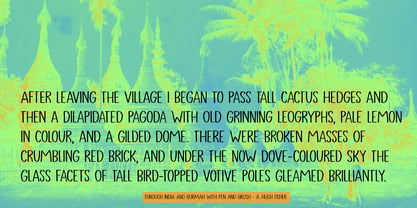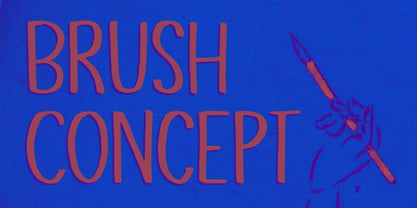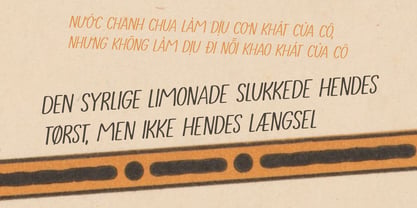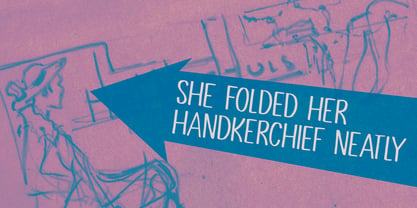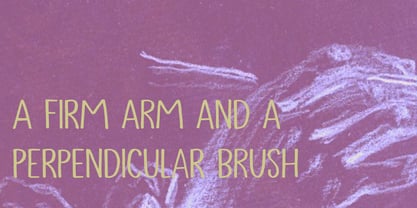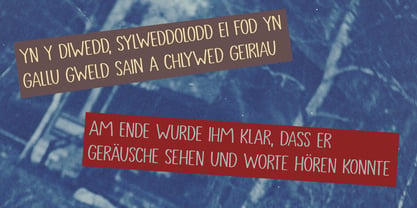
Brush Concept Pro
A long time ago, I bought a pack of Japanese brush-pens. I used them for a while, but then I moved house, renovated it, sold it and moved again, so the pens got stuck in some box. A week ago I found one - by accident, I was looking for an actual brush - and decided to use if for a font.
The result is Brush Concept: a nice and even, sophisticated brush font that comes with extensive language support and a set of contextual alternates.
Designer: David Kerkhoff
Foundry: Hanoded
Hanoded is run by Dutchman David Kerkhoff. His fonts are a mishmash of styles, as he just creates whatever pops into his head. You will find a lot of brush fonts in his collection, as his favourite tools are brushes and Chinese ink, with cartoon style fonts and script fonts complementing his repertoire. Aside from making fonts, David occasionally guides tours in far-flung places, renovates his '30's house and tries reasoning with his wife and (teenage) kids. Not an easy task!